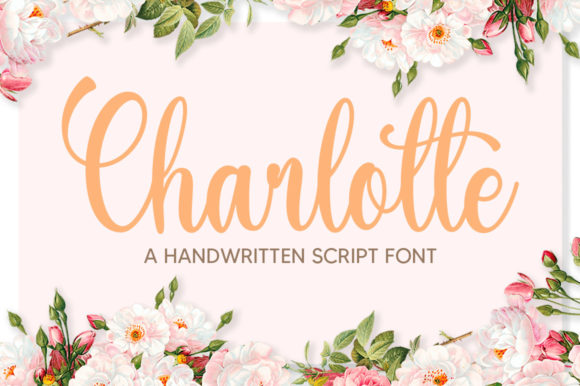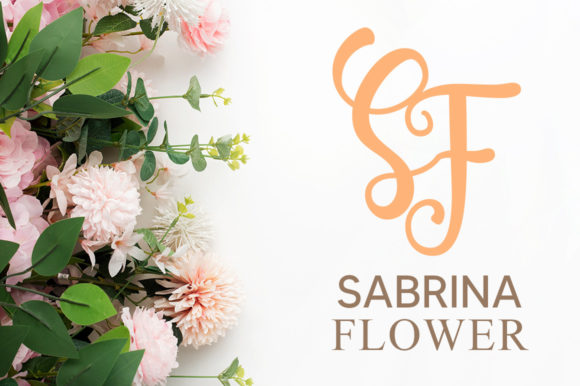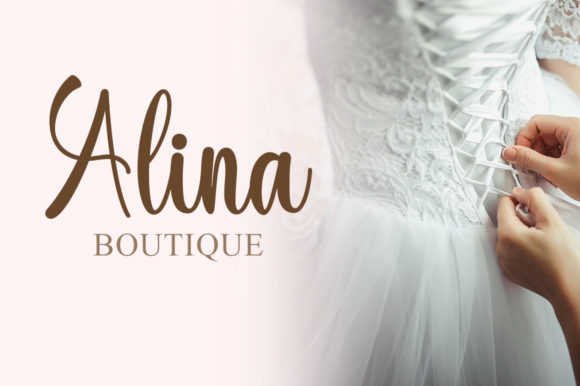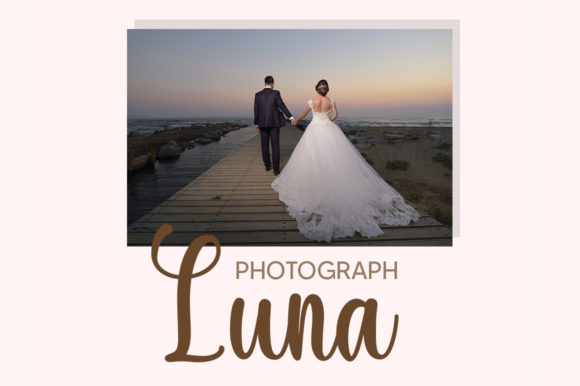
About Charlotte Font
“Charlotte” is a font that exudes refinement and elegance with its delicate and tasteful handwritten style. Its intricate details and graceful strokes make it an ideal choice for creating a sense of sophistication in various design projects, particularly those that require a romantic and personalized touch.
When used in wedding invitations, “Charlotte” can instantly set the tone for a romantic and memorable event. Its flowing and elegant script adds a touch of intimacy, making recipients feel valued and cherished. The font’s timeless appeal adds to the overall elegance of the invitation, ensuring that it becomes a cherished keepsake for the couple and their guests.
In cards and stationery, “Charlotte” shines as a way to convey heartfelt messages. Its personalized and gentle quality makes it perfect for expressing emotions and sentiments in a genuine and authentic manner. Whether used for thank-you notes, love letters, or special occasions, the font adds an extra layer of beauty to the words being shared.
The font’s refined nature also makes it suitable for branding projects that require a touch of elegance and femininity. “Charlotte” can work well for brands in the beauty, fashion, or lifestyle industries, as it evokes a sense of sophistication and class. Its versatility allows it to be used in logos, product packaging, and promotional materials.
The delicacy and joyfulness of “Charlotte” also make it an excellent choice for designs that aim to capture the essence of romance and intimacy. From social media graphics to personalized gifts, the font adds a soft and heartfelt touch to any creative endeavor.
Overall, “Charlotte” is a font that possesses the ability to transform ordinary designs into works of art with its refined elegance and romantic flair. Its daintiness and joyful charm make it a go-to choice for writing wedding invitations, crafting meaningful cards, and adding a personalized touch to a wide range of design projects.